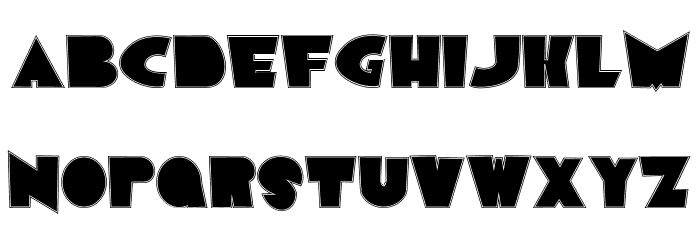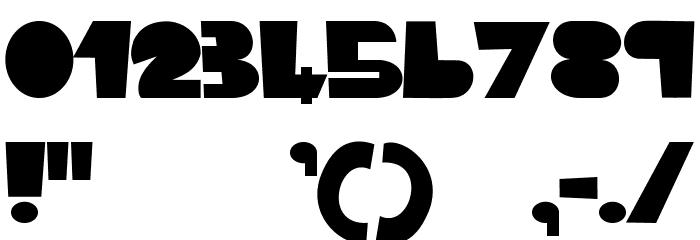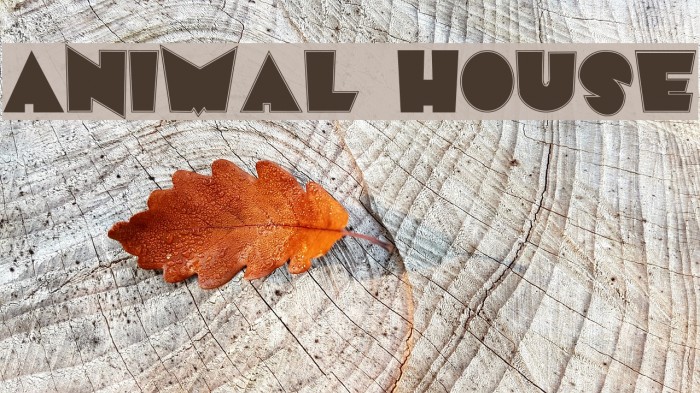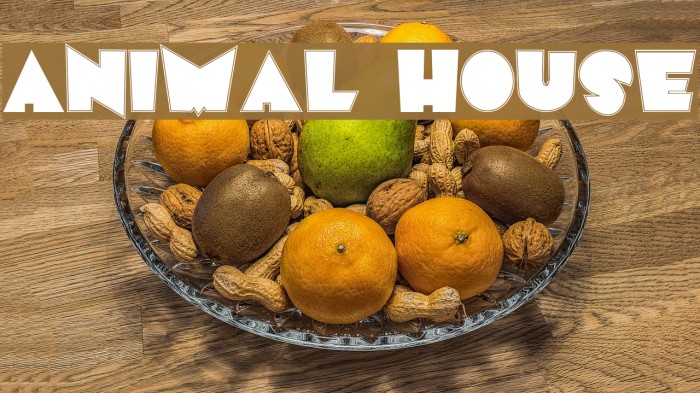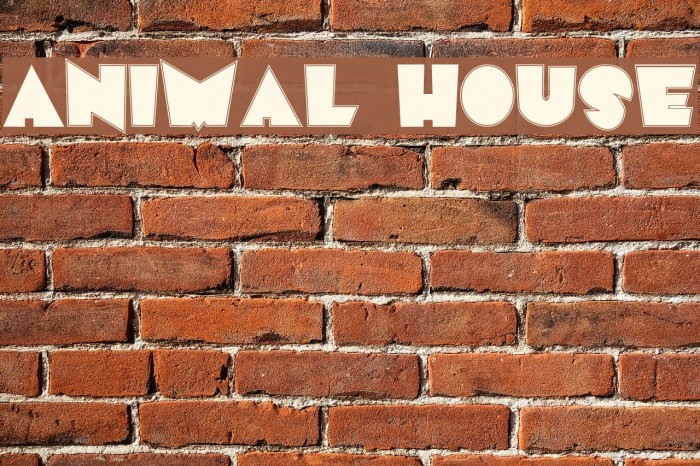
Animal House Font
This font features bold, geometric shapes with a playful and dynamic style. The characters are designed with a strong emphasis on angular forms and sharp edges, creating a sense of movement and energy. The uppercase and lowercase letters maintain a consistent weight, contributing to a cohesive appearance. The numbers and special characters follow the same design principles, ensuring uniformity across all elements. This font's unique style makes it stand out, offering a modern and artistic flair that can capture attention in various design contexts.
A bold, geometric font with angular shapes and a playful, dynamic style.
- Proposed Projects: Ideal for posters, branding, and any project requiring a bold, eye-catching typeface.